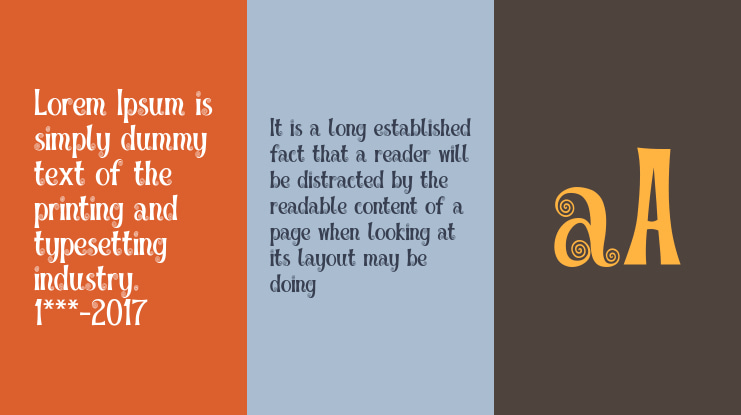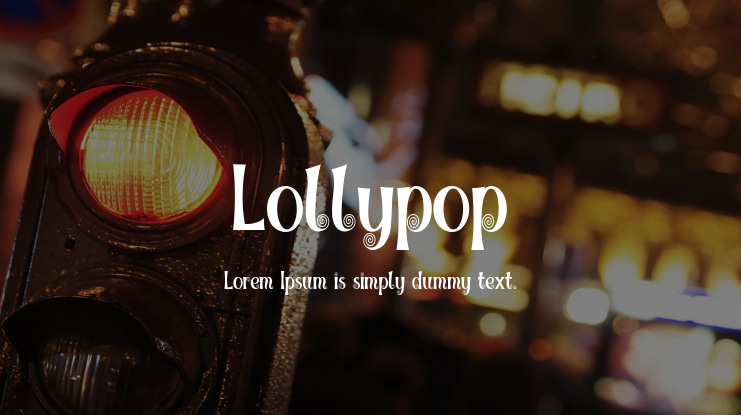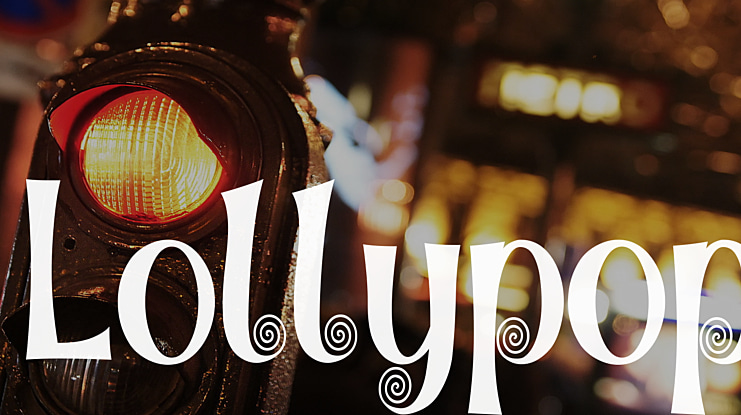
Lollypop Font
Introducing "Lollypop" font, a playful display typeface that takes you on a delightful trip down memory lane. With its retro-inspired look, this font adds a touch of vintage charm to your designs, capturing the essence of carefree fun and whimsy. Each letter carries a sense of joy and playfulness, making "Lollypop" the perfect choice for creating eye-catching headlines, logo types, or any design project that needs a dose of cheerful nostalgia. Let "Lollypop" font bring a smile to your audience and infuse your designs with a playful retro vibe.